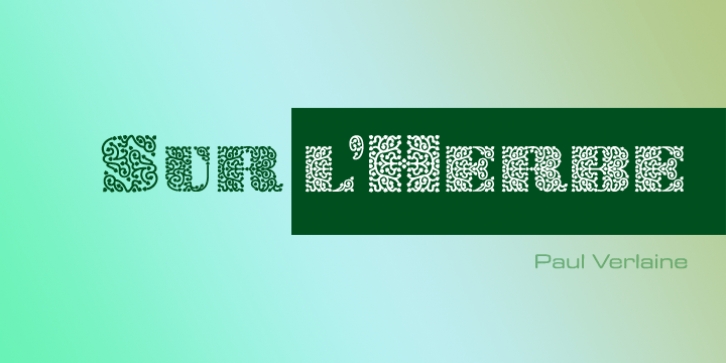
Decora one is a typographic innovation. It is the first of a series of typeface that gives the typographer and other graphic artists the possibility to use modern initials. It enables, moreover, the use of this typeface for decorative headlines and is suitable for manipulations in both vector-based and pixel-based graphic programs.
Typographies in countries worldwide, whose alphabets derive from the Roman one, are dependent on such innovations in order to meet the increasing demands of modern communication. This typeface implies at the same time an enrichment of the possibilities for typographical design, which in turn increases the delight in such design. It gives me great pleasure to present this series of new typefaces to my creative colleagues worldwide.